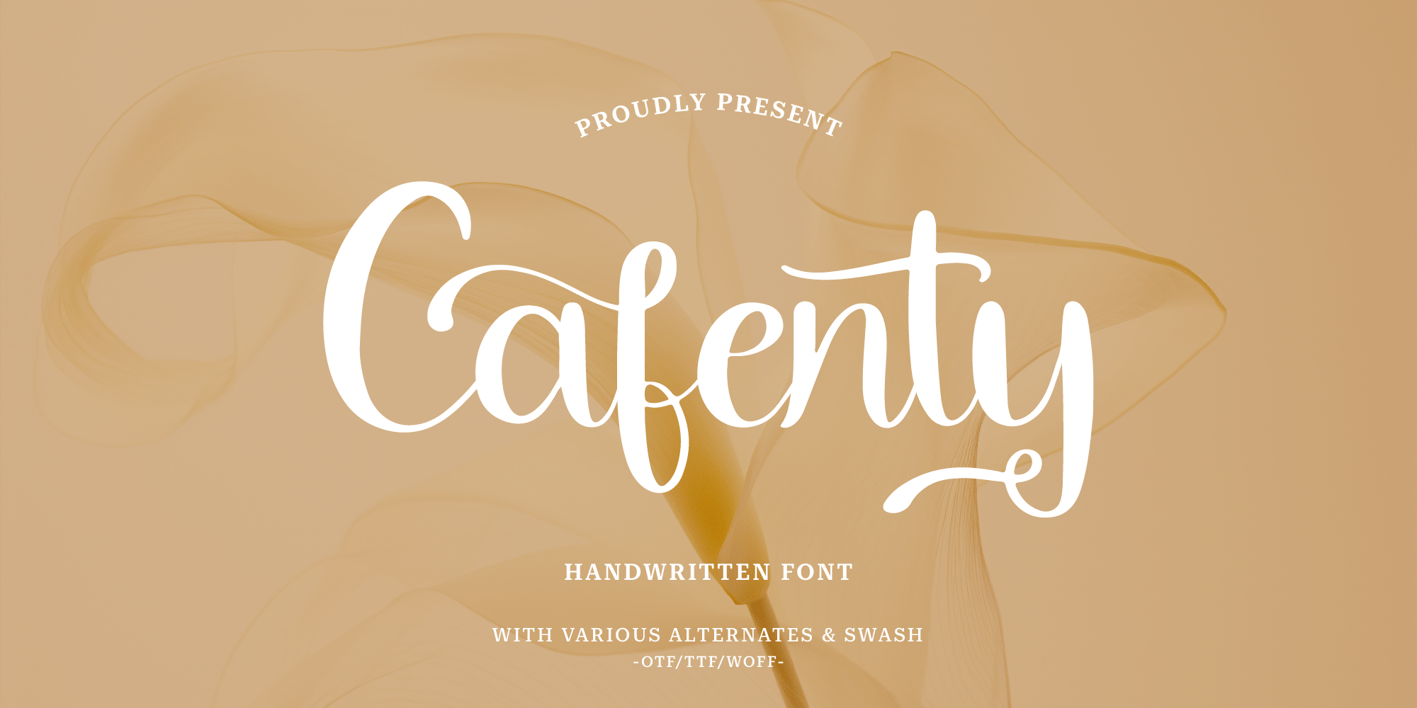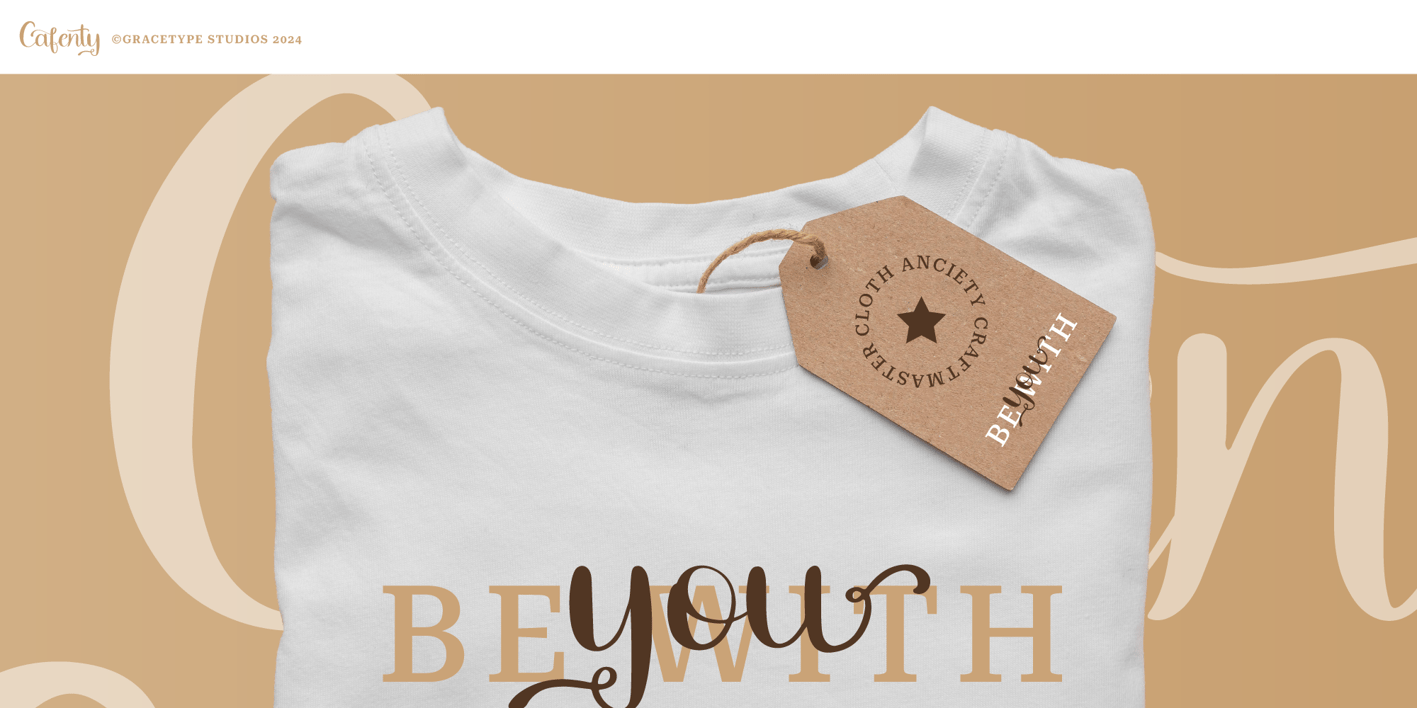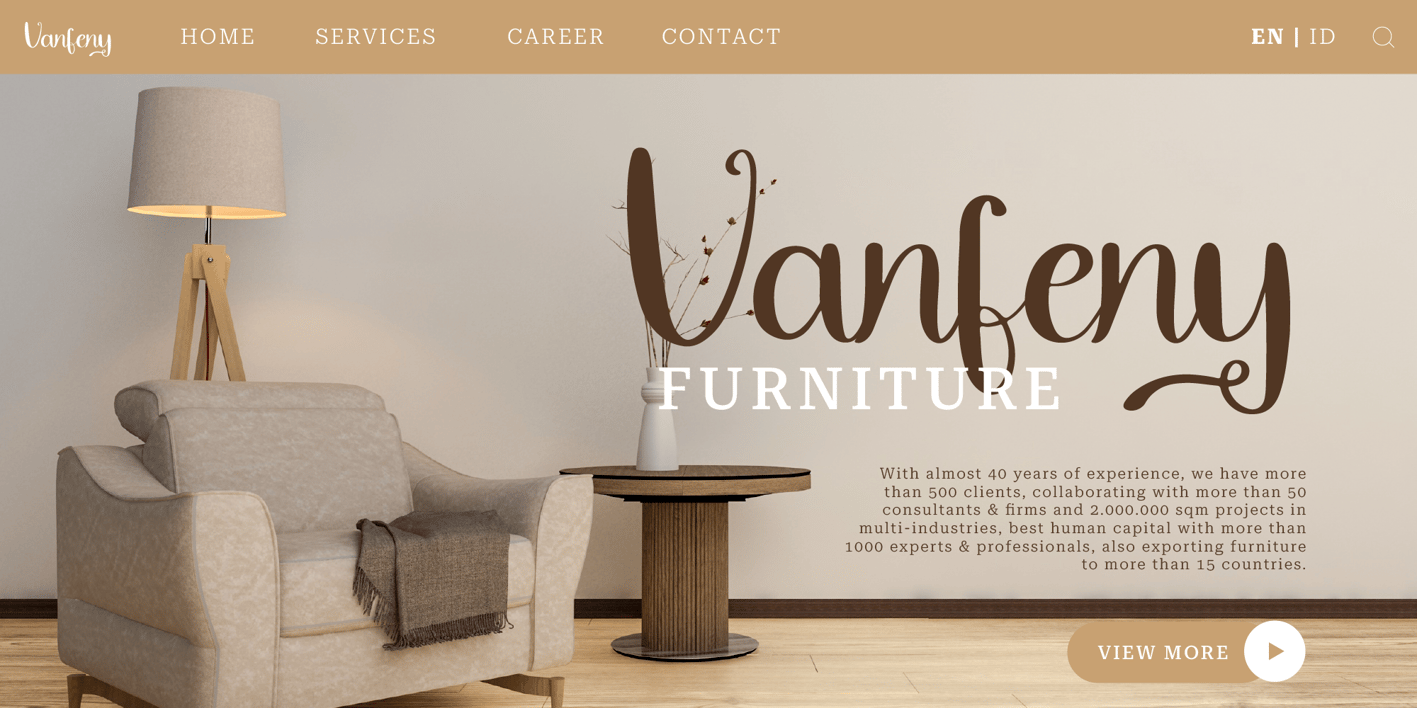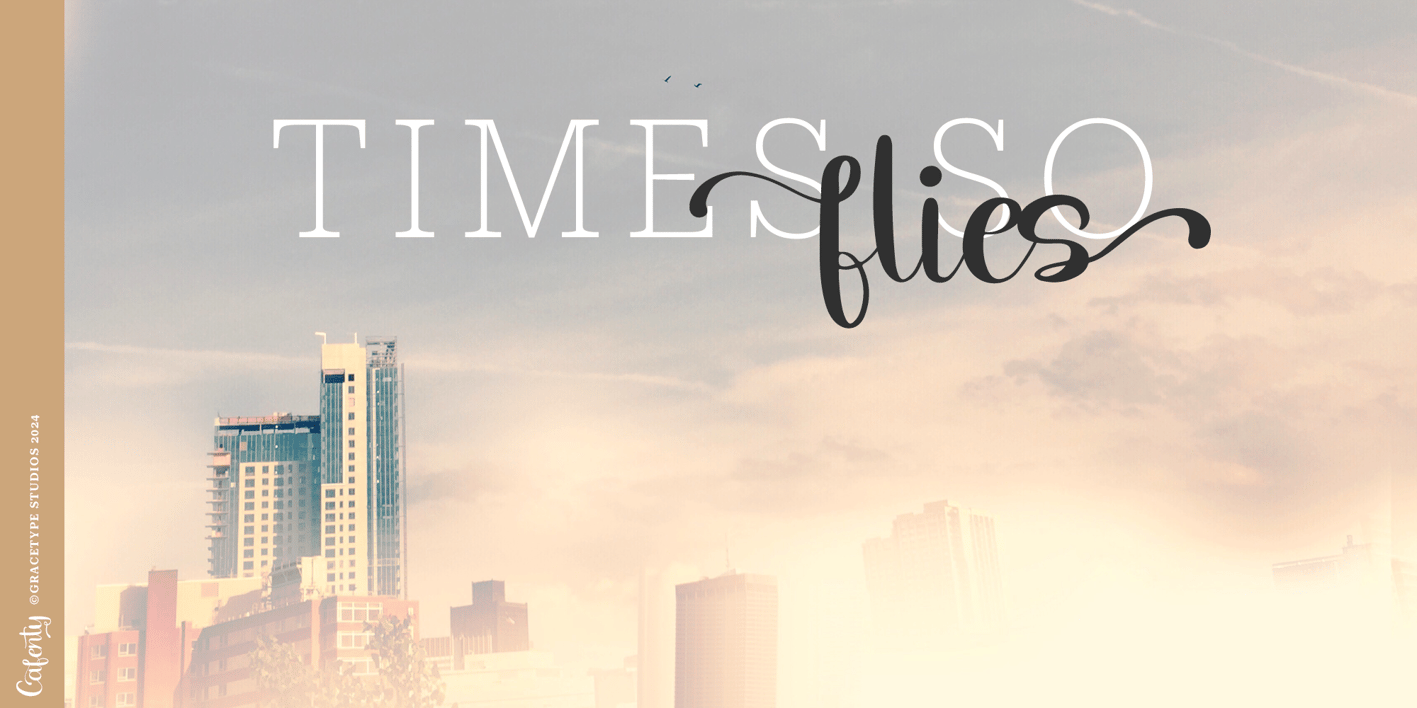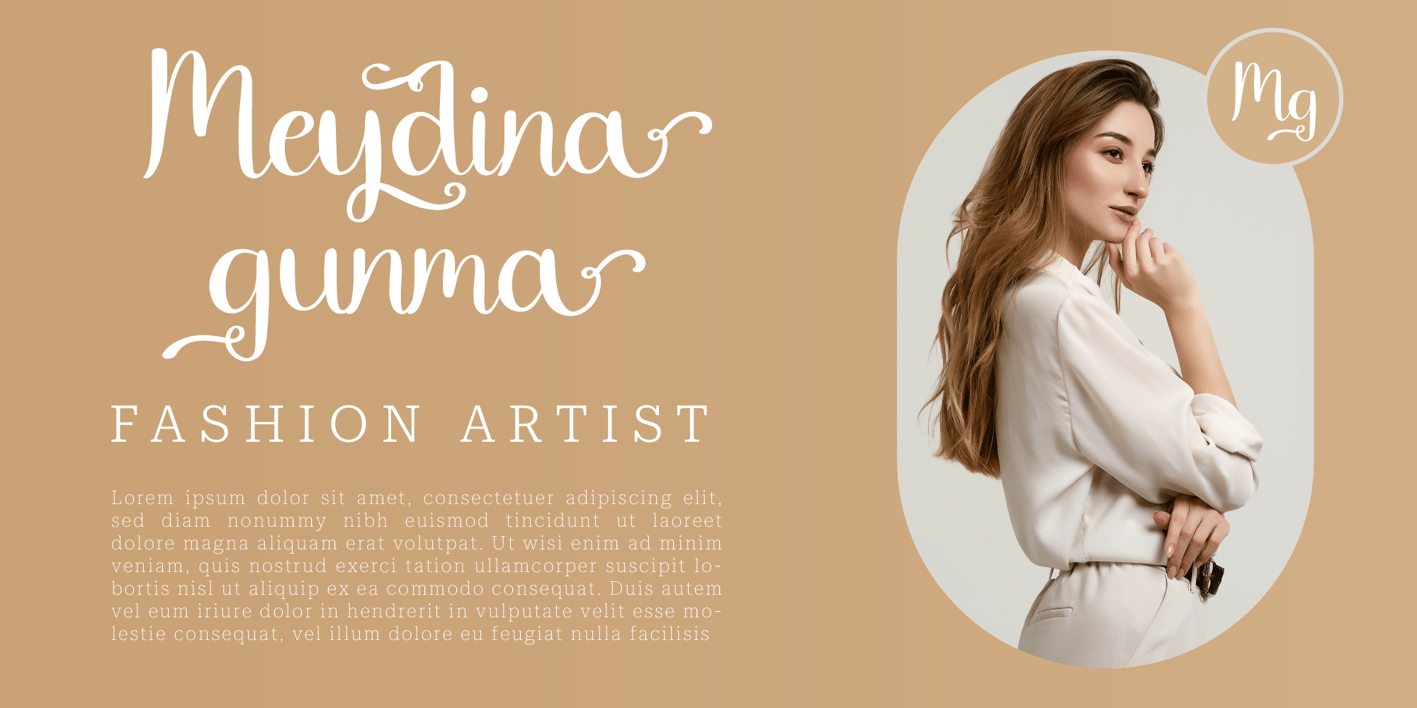
Cafenty Font
Cafenty Script, from Gracetypestudio, suitable for any projects such as: logos, branding projects, homeware designs, product packaging, mugs, quotes, posters, shopping bags, t-shirts, book covers, name card, invitation cards, greeting cards, label, photography, watermark, special events, and all your other lovely projects that need a beautiful script taste.